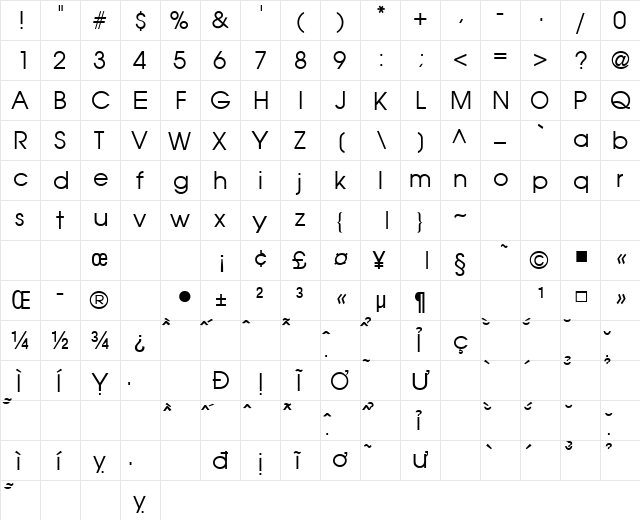
VNI-Avo Normal Font Preview
VNI-Avo Normal
Design Context for VNI-Avo Typeface
VNI-Avo offers clean, dependable letterforms without strong stylistic allegiance, making it a practical choice for designers who need flexibility.